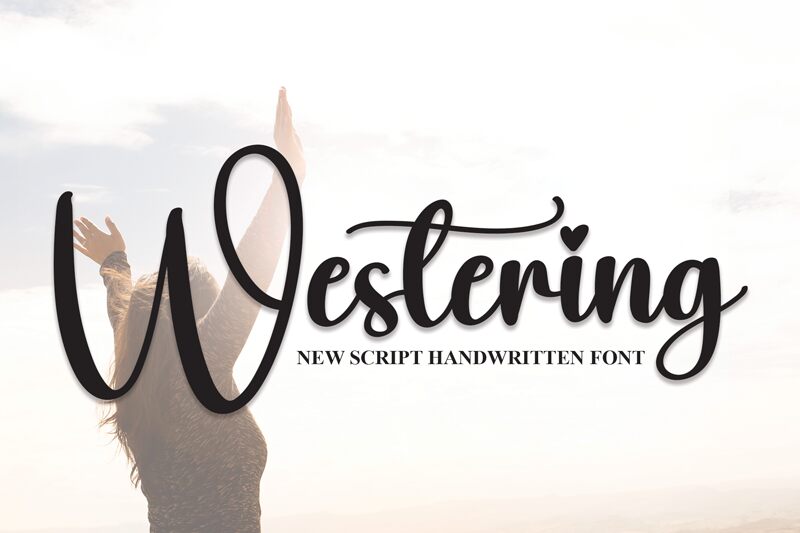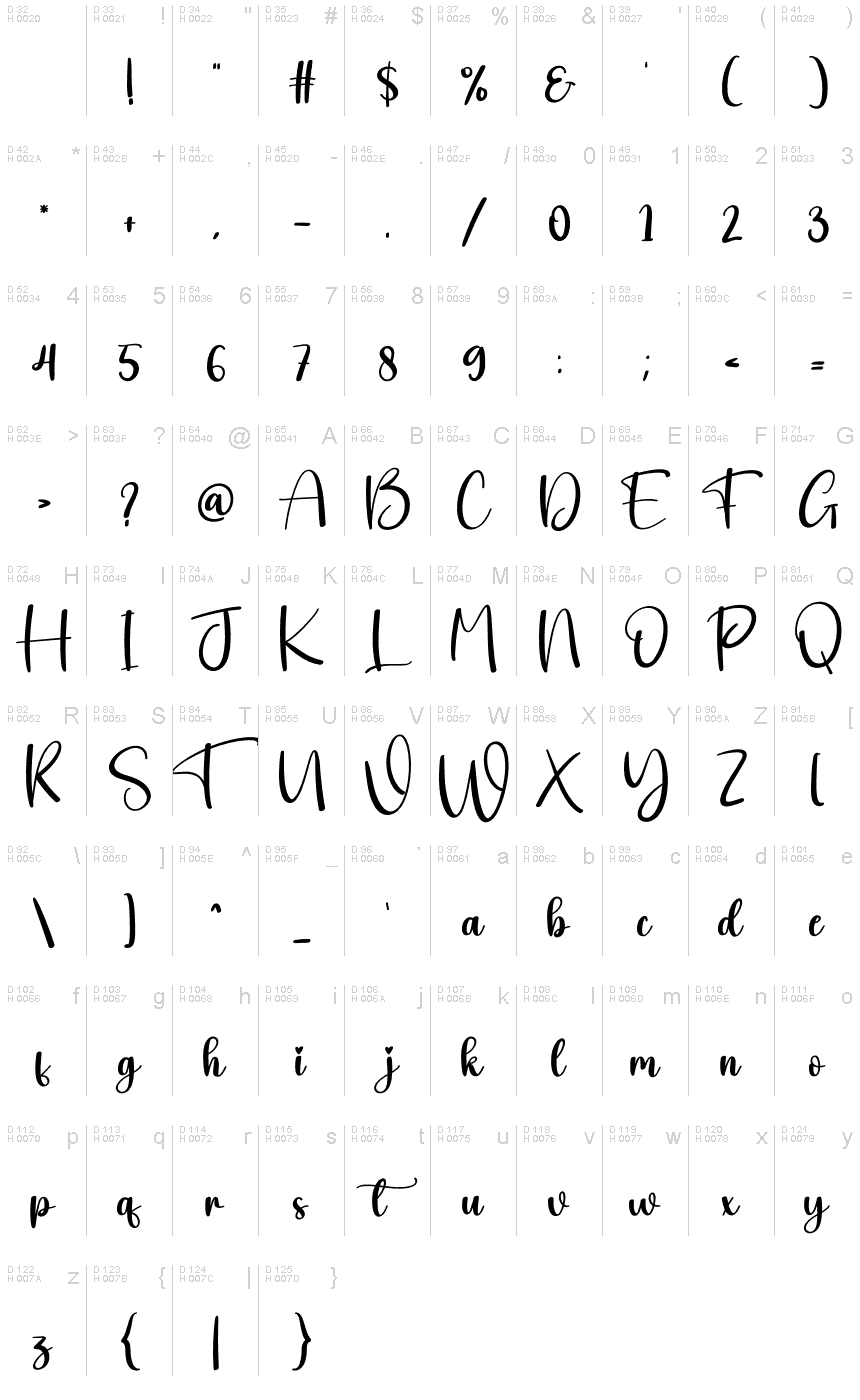
Westering
The Westering font, created by Scratchones, embodies the elegance of feminine calligraphy. With its semi-light weight, this font brings a delicate touch to any project.
Its graceful curves and flourishes make it perfect for wedding invitations, love letters, and romantic branding. The Westering font adds a touch of sophistication to fashion magazines, beauty blogs, and lifestyle websites. Its versatility also extends to logo designs for high-end boutiques or luxury spas.
Let Westering elevate your designs with its refined and feminine charm.
Its graceful curves and flourishes make it perfect for wedding invitations, love letters, and romantic branding. The Westering font adds a touch of sophistication to fashion magazines, beauty blogs, and lifestyle websites. Its versatility also extends to logo designs for high-end boutiques or luxury spas.
Let Westering elevate your designs with its refined and feminine charm.